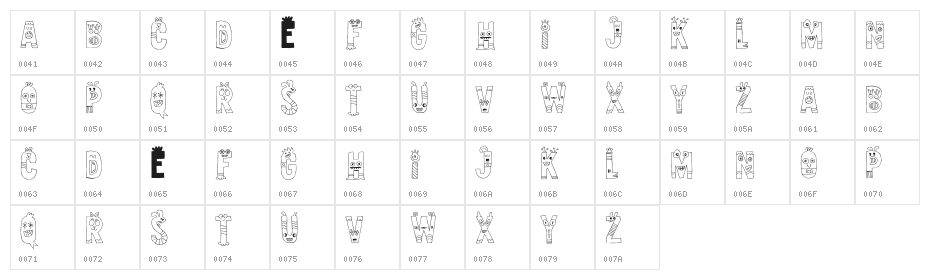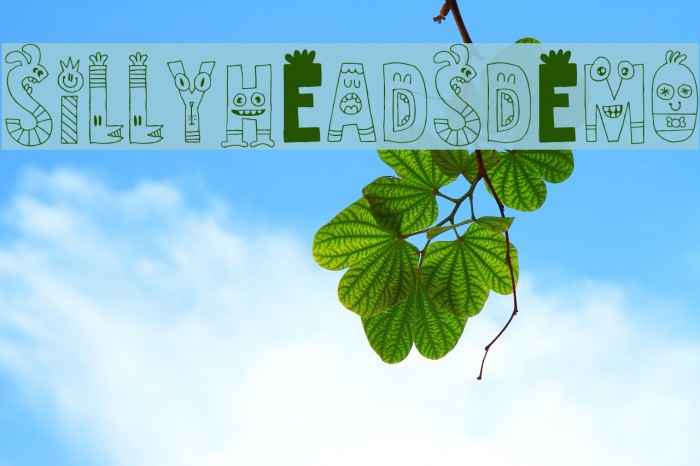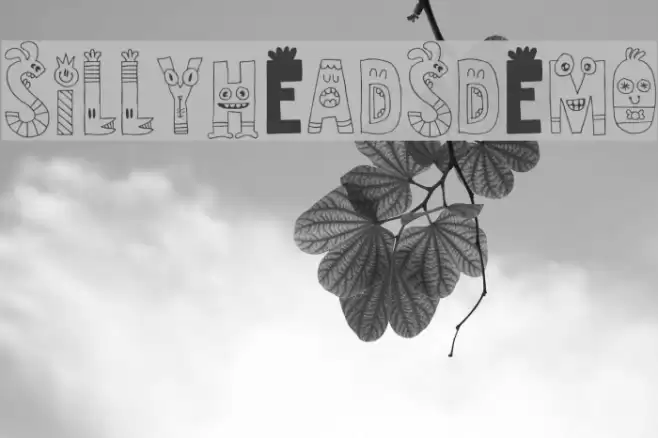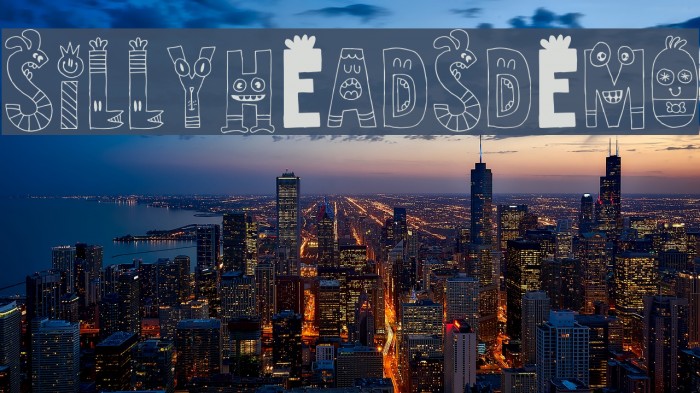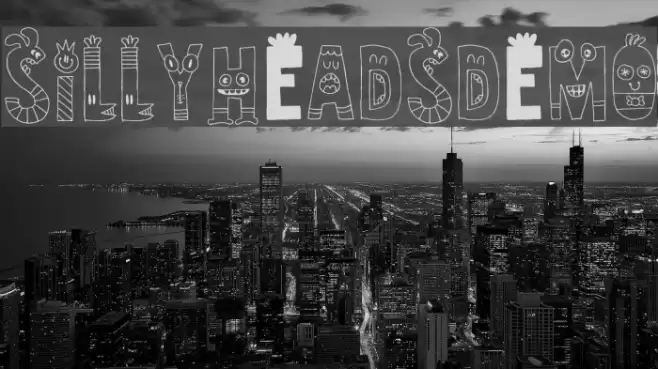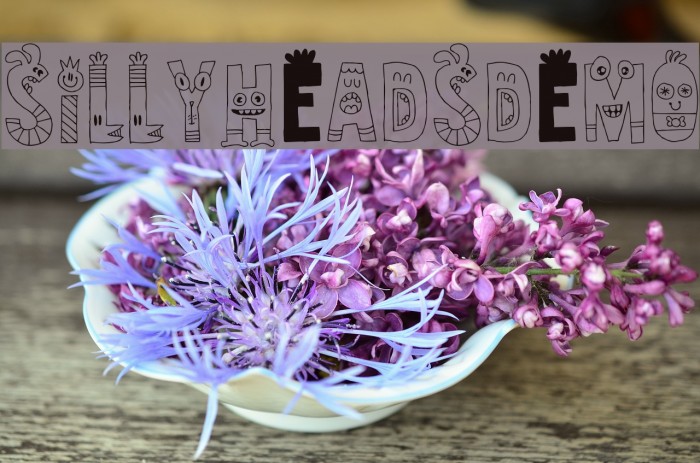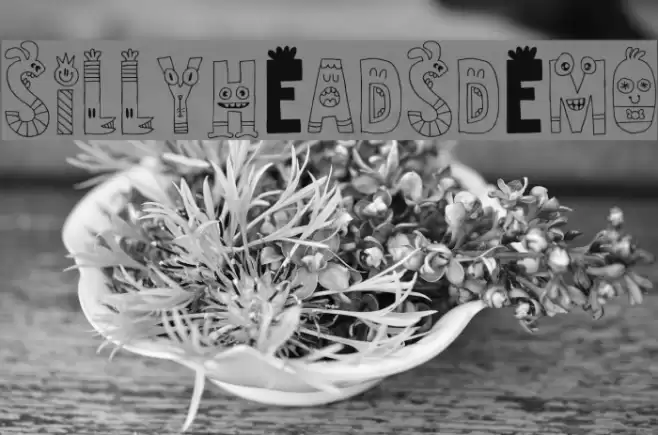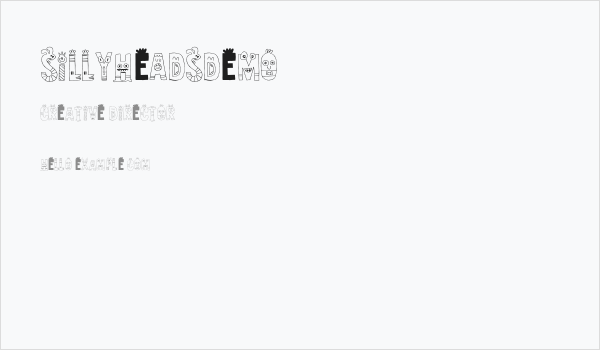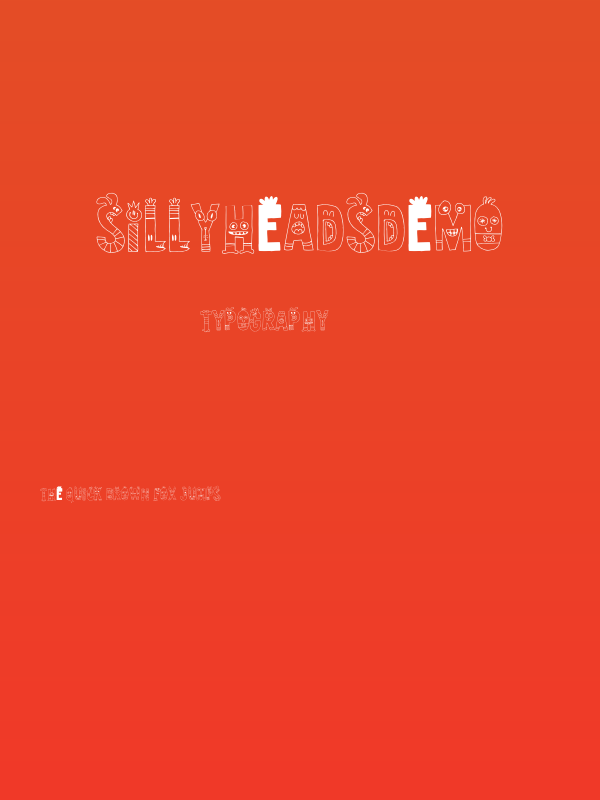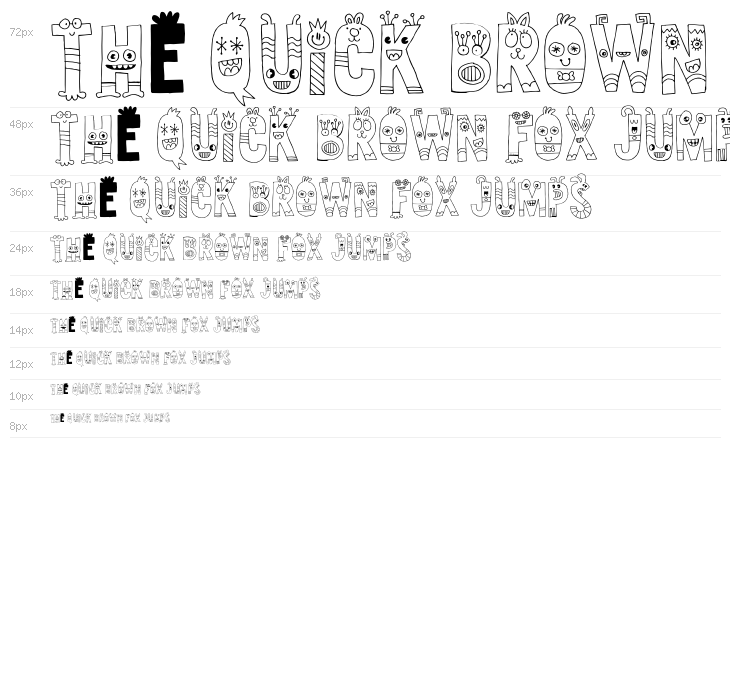
SillyheadsDEMO Font
SillyheadsDEMO Description
This playful and whimsical font features letters that are creatively designed with quirky, cartoon-like faces and elements. Each character is unique, incorporating various facial expressions and accessories that give the font a lively and humorous personality. The style is highly decorative, with each letter having its own distinct character, making it ideal for projects that require a fun and engaging visual element. The font's design is perfect for children's materials, party invitations, or any creative project that aims to capture attention with its imaginative and entertaining style.
| Overall Style | Playful, Whimsical, Cartoon |
| Proposed Projects | Ideal for children's books, party invitations, playful branding, and creative posters. |